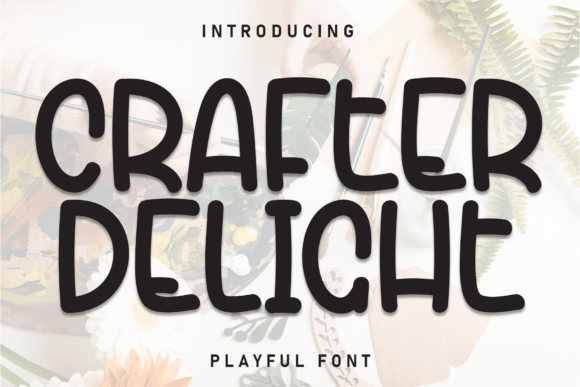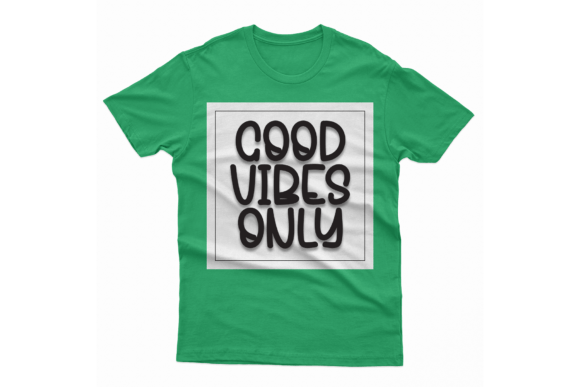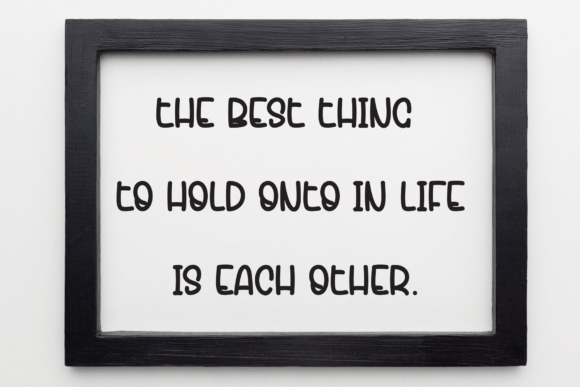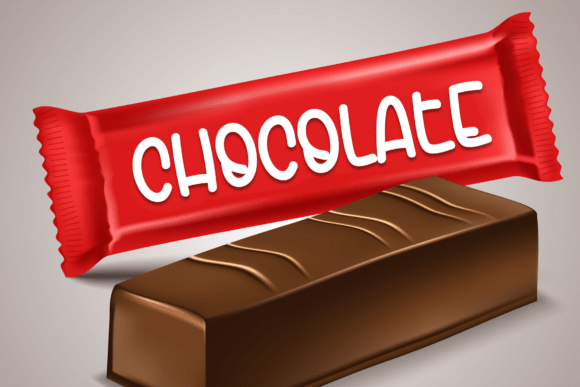
Crafter Delight Font: A Cute Display Font for Cricut & DIY Projects!
About the Crafter Delight Font
Let us introduce you to Crafter Delight Font, where timeless design meets modern craftsmanship. Crafter Delight is a casual and neat display font that radiates a fresh, friendly vibe. With clean lines and a relaxed structure, it’s perfect for packaging, posters, and social media graphics. The approachable design adds charm and clarity to projects while maintaining a polished appearance.
Crafter Delight’s friendly personality makes it ideal for projects requiring approachability and warmth, such as branding for artisanal food products, children’s books, or invitations to casual events. It excels in headlines, short slogans, and logos, adding a touch of handcrafted charm. However, its casual nature makes it less suitable for lengthy body text or UI elements where legibility at smaller sizes is crucial.
Pairing Crafter Delight effectively depends on the desired emphasis. For a playful yet balanced aesthetic, consider pairing it with a clean sans-serif like Open Sans or Lato. To enhance its handcrafted feel, a slightly more rustic serif like Playfair Display could work well. Avoid pairing it with overly ornate or overly geometric fonts which would clash with its relaxed character.
Its core personality is best described as friendly and approachable, with a touch of casual elegance. The font successfully balances approachability with sophistication, offering a versatile yet distinct visual identity for a range of projects.
Crafter Delight Font Usage Examples
Crafter Delight Font Example